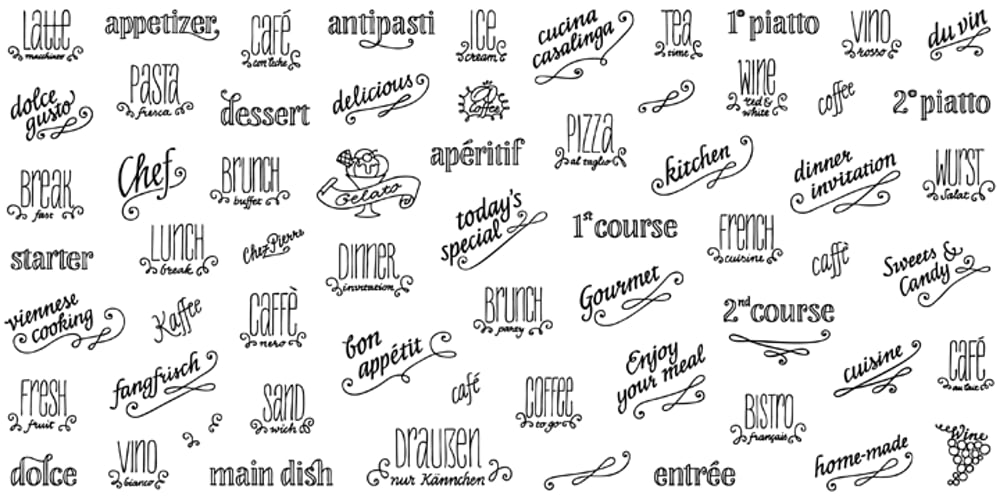
LiebeMenuLettering Font Family was designed by Ulrike Rausch and published by LiebeFonts. LiebeMenuLettering contains 1 styles and family package options. LiebeMenuLettering is a collection of commonly used words and phrases found in restaurant signage and menus. Every phrase has been hand-lettered to give your menus or dinner invitations the handmade but professional look they deserve. The most frequently used restaurant terms from four different languages (English, Italian, French, and German) are included in this single font and can be used in any text or graphics application. Combine LiebeMenuLettering with our popular LiebeMenu and LiebeCook fonts.